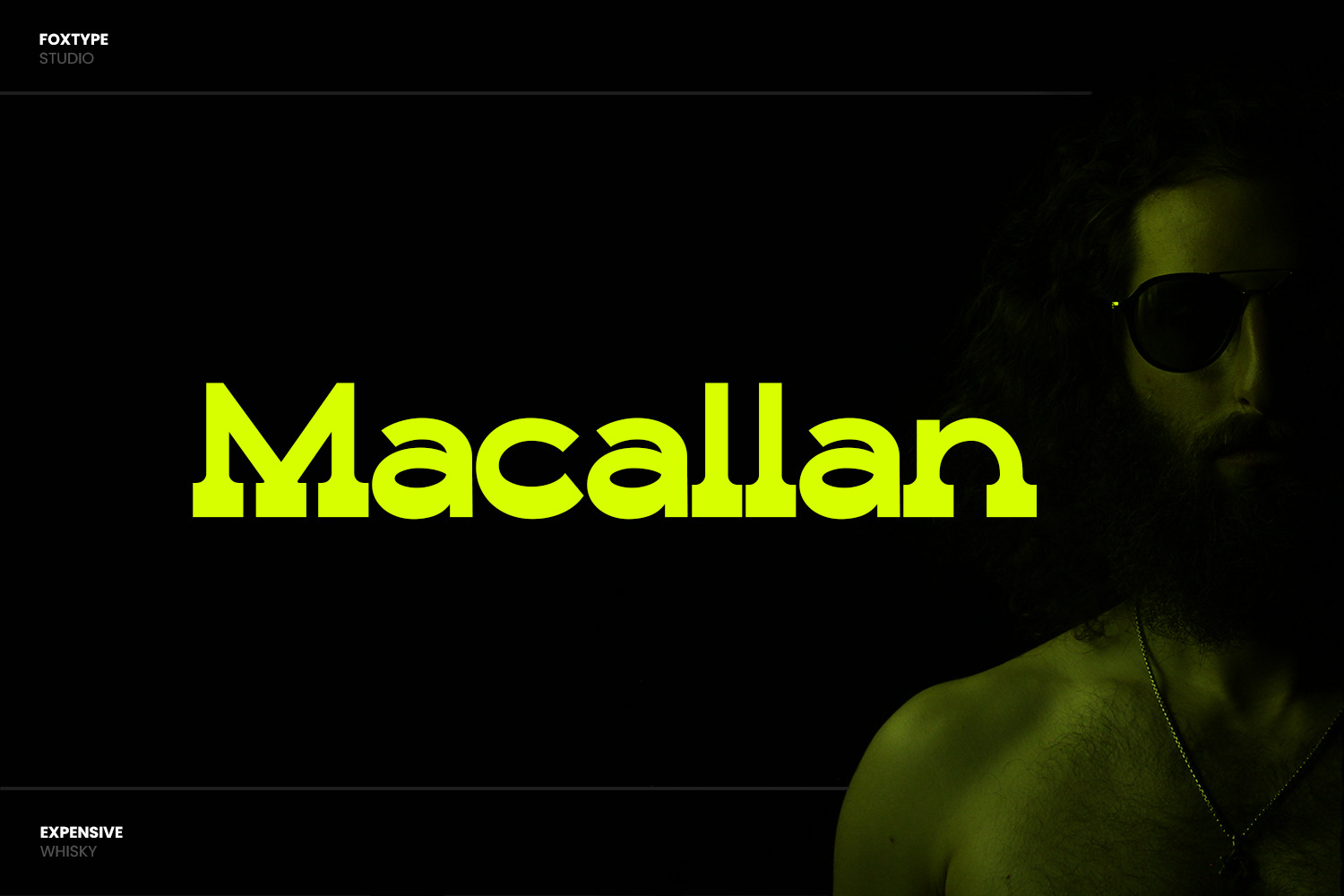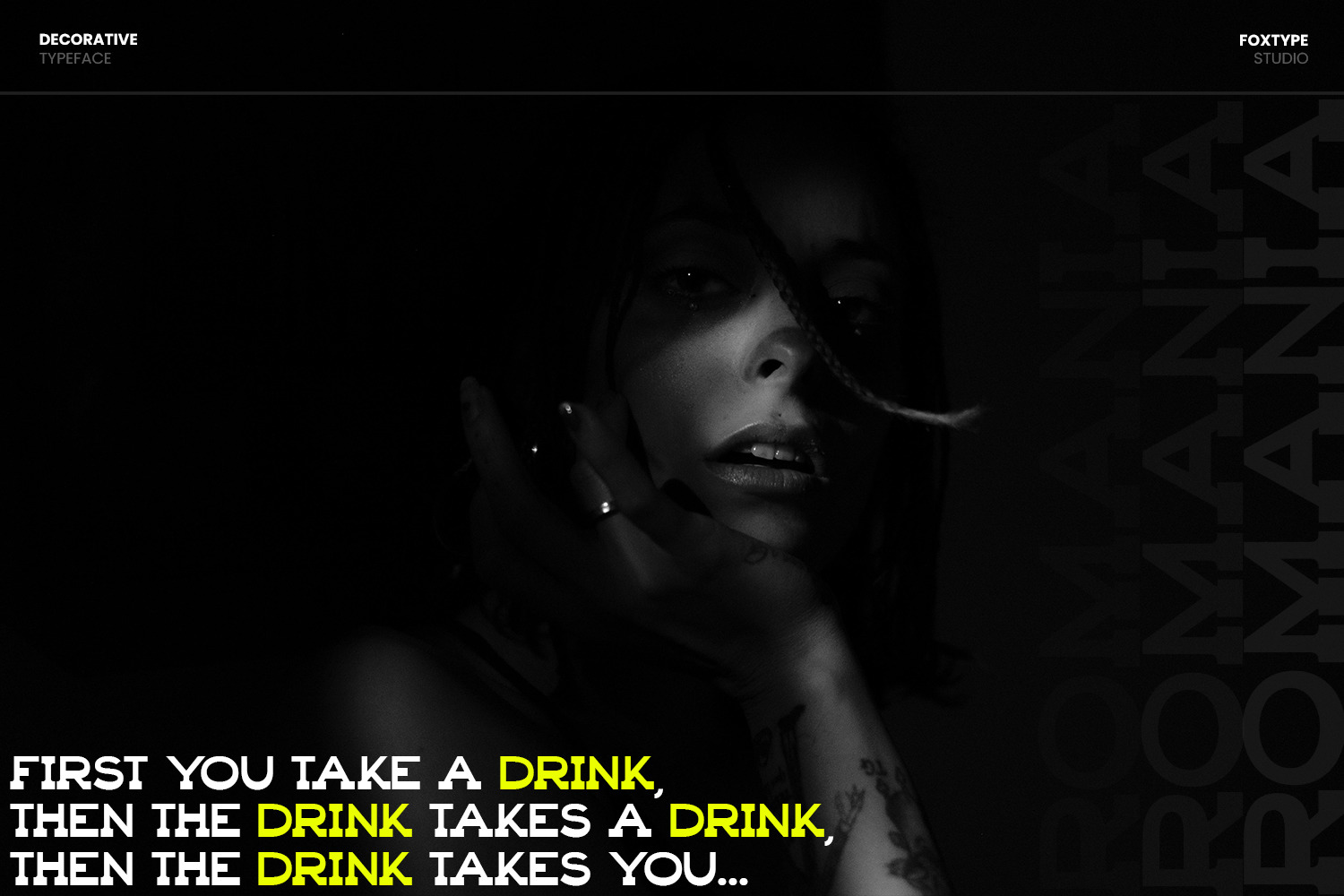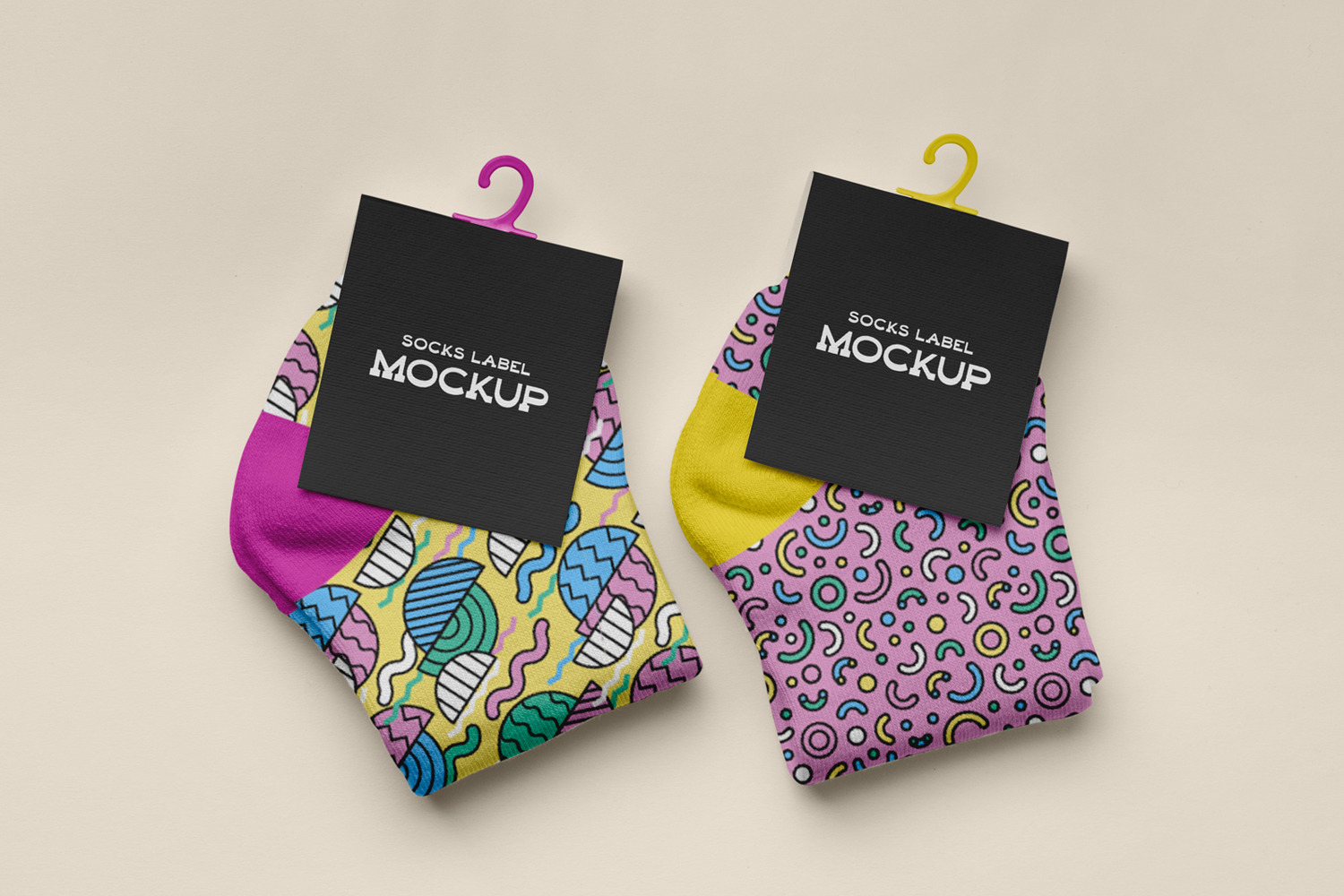
Macallan Decorative Typeface
Macallan Decorative is a Unique Modern Elegant Typeface with Web-fonts. It's a very versatile font that works great in large and small sizes. Macallan Font would perfect for branding, logos, headlines, Captions. or simply as a stylish text overlay to any background image. Strong capitals and a smooth, open lowercase are effective in a variety of applications. It's shown a clean, minimalist, warmth, quirky, yet still purposed to be versatile and easy to read.